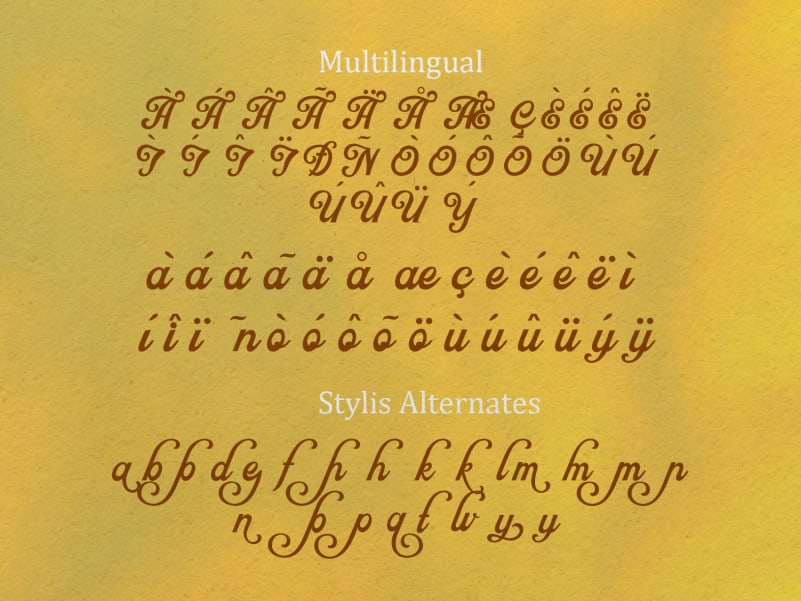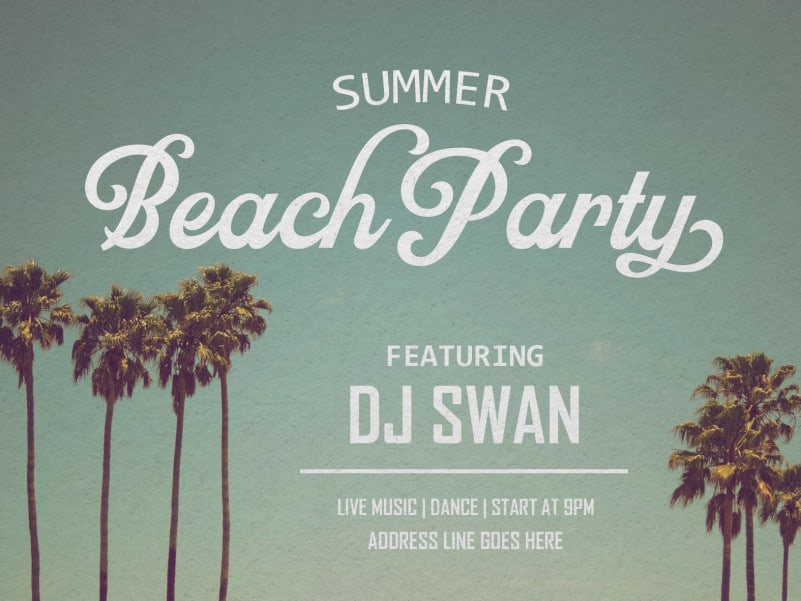
Chelsey Script Font is a classy script font. Combined with calligraphic styled handwritings will make your design project more powerful. Made for any professional project branding. It is the best for logos, branding and of lettering quotes.
suits great for book covers, restaurant menus, food products, craft ale labels, organic teas, sport teams logos and any such.
is equipped with Contextual Alternates and Standard Ligatures that keep the connections smooth. Both features are automatically on